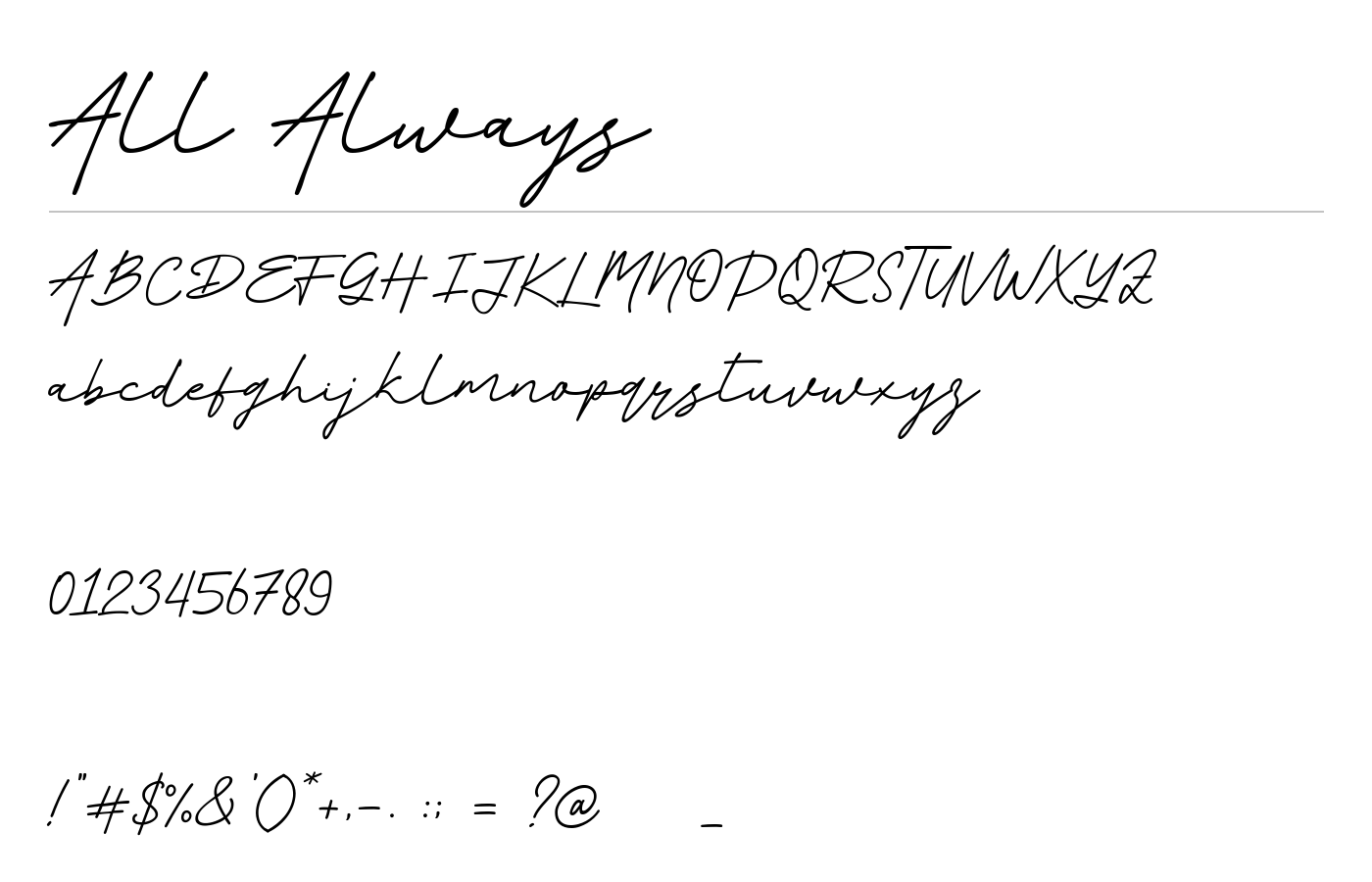
All Always is a delicate and elegant script font featuring thin, fluid strokes that mimic natural handwriting with a slightly slanted, casual style. Its lightweight and airy letterforms make it perfect for adding a personal, refined touch to invitations, branding, and editorial designs where a graceful yet approachable feel is desired. This font excels in creating intimate and stylish visuals, especially for fashion, lifestyle, or creative projects.
All Always Font
About All Always Font
| Font family | All Always Font |